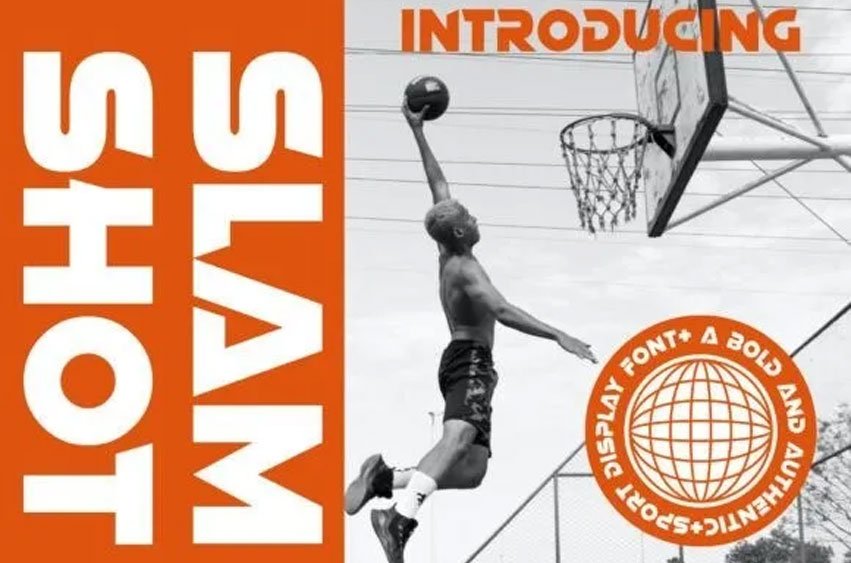
Slam Shot Font its bold and innovative design, this font exudes a sense of modernity and energy, perfect for adding a touch of excitement to any project.
Its unique style and contemporary look make it the ideal choice for logos, branding, and digital designs that aim to stand out.